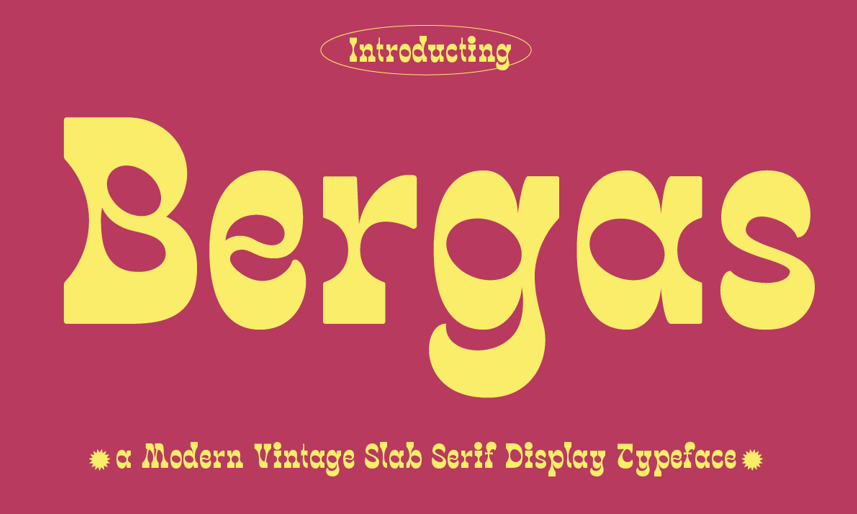
Griyotype [Aprian Sembada]
Indonesian designer in 2021 of Ziga (a reverse stress Western font), Mleyoth (a Hebrew emulation blackletter), Bergas (a Western font) and Rettaya (cursive).